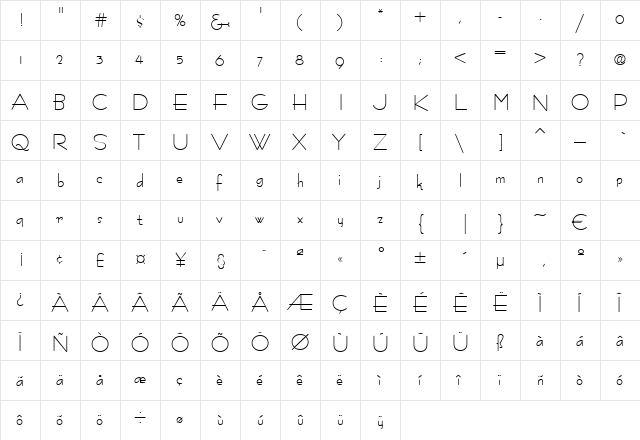
Euterpe Regular
Design Context for Euterpe Typeface
Euterpe takes a measured approach to typography — its balanced proportions and neutral character make it a reliable workhorse for both digital and print work.